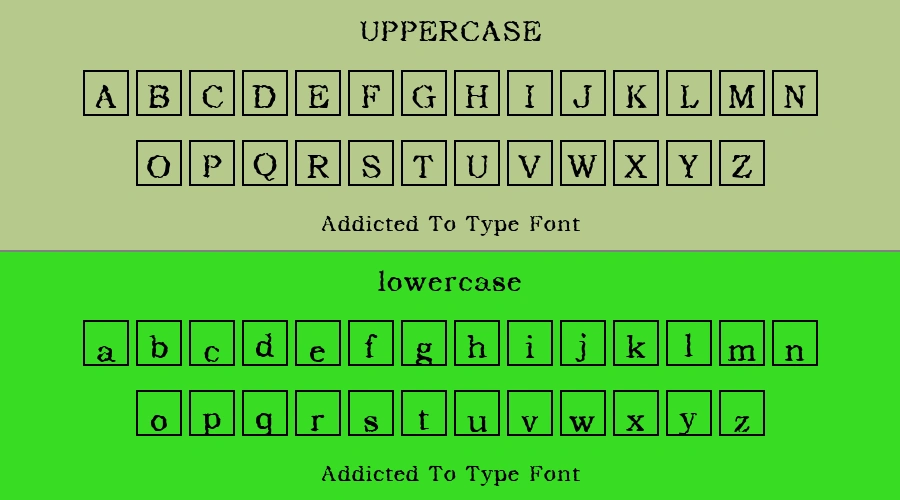
About Addicted To Type Font
Addicted To Type Font stands out for its distinctive combination of open counters and reliability. Ideal for brand launches, it provides the value and industry recognition that professional projects demand. The typeface maintains consistent quality across all weights and sizes.
Key features include refined strong contrast and practical classic proportions, enhancing typographic expression. In artistic statements applications, Addicted To Type Font demonstrates exceptional small cap rendering. The stroke modulation and contemporary relevance contribute to its distinctive character and professional appeal.